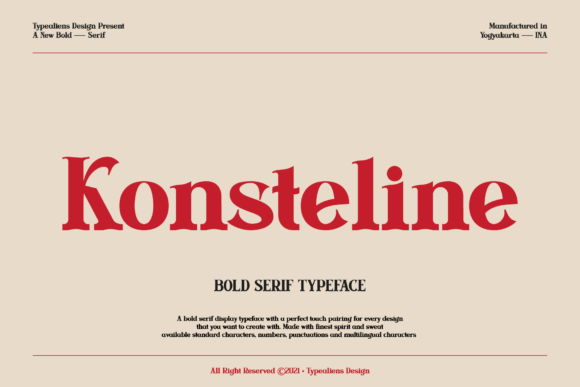
Konsteline Font
Konsteline is an assertive and vintage styled serif font. This font is imposing and features uniquely shaped letters, and as a result, it will easily match a wide range of creations that require a distinct touch.